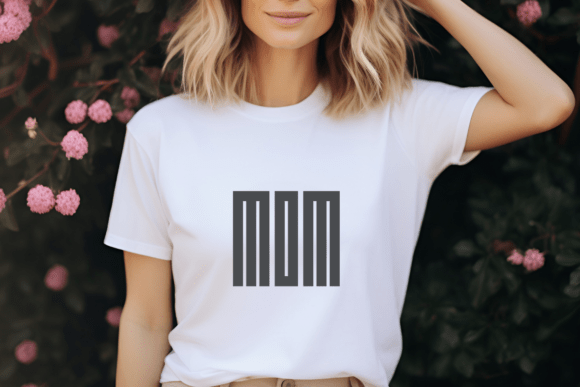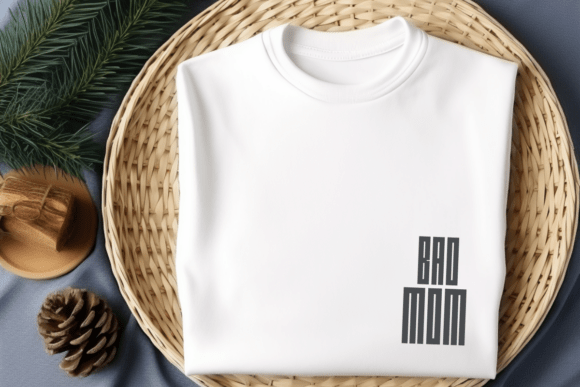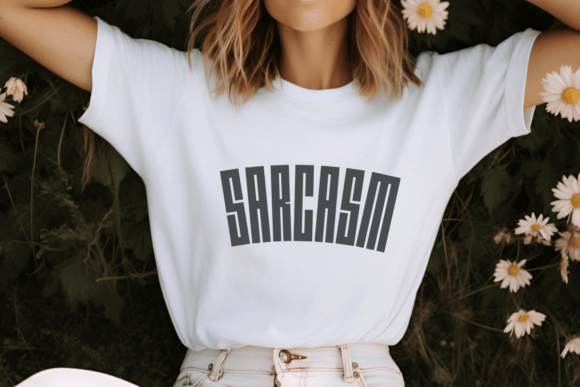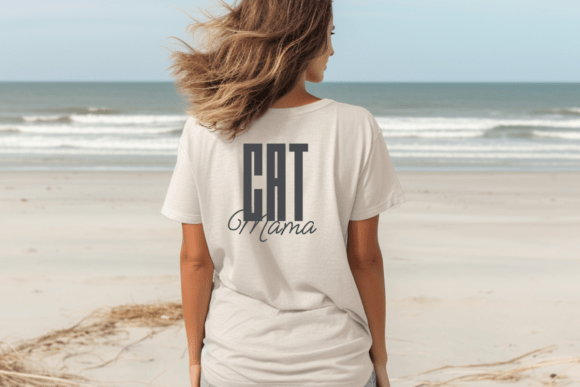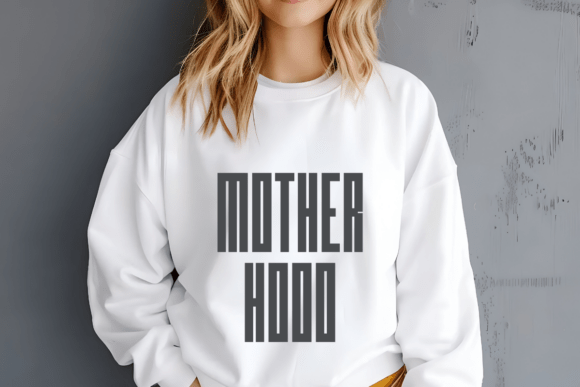
Introducing Buffering Font: The Ultimate Modern Sans Serif for Creators
In the world of digital design, having the right typography can make all the difference. For creators who need a modern, digital-forward aesthetic, Buffering Font is the perfect solution. This sleek and high-impact condensed sans serif font is designed to elevate your designs and give them a futuristic edge.
Key Features of Buffering Font
Buffering Font boasts ultra-tall, narrow letterforms and precise geometric lines, making it perfect for a wide range of applications. Its clean and versatile style fits both professional corporate identities and edgy streetwear designs, making it an ideal choice for:
- Print On Demand projects like tech-inspired t-shirts, futuristic posters, and minimalist tote bags
- Gaming branding and app interfaces
- Modern packaging and cinematic visuals
- Editorial headers and tech-focused crafting projects
What Makes Buffering Font Stand Out
Buffering Font’s unique design makes it stand out from other sans serif fonts. Its ultra-tall letterforms give it a sleek and futuristic look, while its precise geometric lines ensure that it remains clean and legible. This font is perfect for designers who want to create a modern and digital-forward aesthetic.
Buffering Font is perfect for designers and crafters who want to create modern and digital-forward designs. Its versatility and clean style make it suitable for a wide range of projects, from professional corporate identities to edgy streetwear designs. Whether you’re a designer looking to create a new brand identity or a crafter looking to create unique and modern designs, Buffering Font is the perfect choice.
Use Cases for Buffering Font
Buffering Font can be used in a variety of ways, including:
- Creating tech-inspired t-shirts and apparel
- Designing futuristic posters and flyers
- Developing modern packaging and branding
- Creating cinematic visuals and motion graphics
- Designing editorial headers and typography
Why Choose Buffering Font
There are many reasons why Buffering Font is the perfect choice for designers and crafters. Here are just a few:
- Unique and modern design
- Clean and versatile style
- Ultra-tall and narrow letterforms
- Precise geometric lines
In conclusion, Buffering Font is the ultimate modern sans serif font for creators. Its unique design, clean style, and versatility make it perfect for a wide range of applications. Whether you’re a designer or crafter, Buffering Font is the perfect choice for anyone looking to create modern and digital-forward designs.